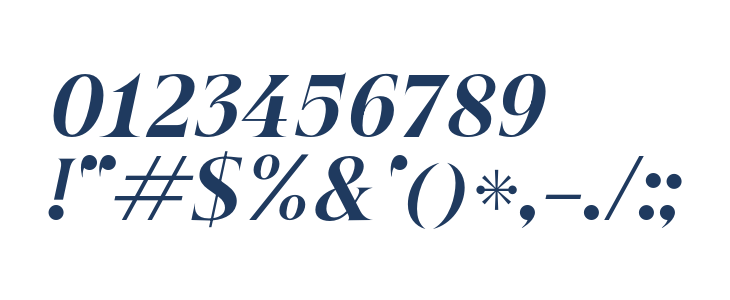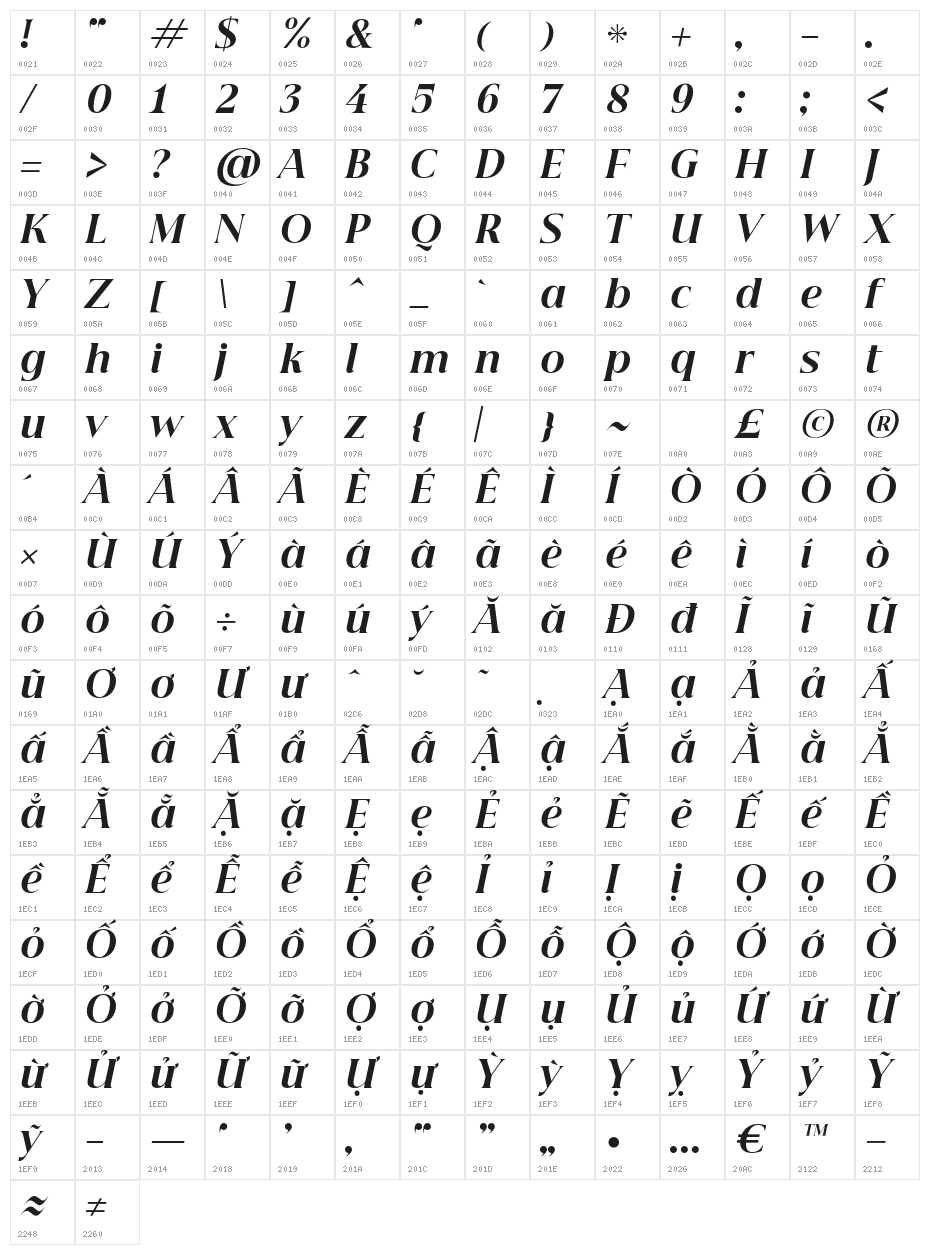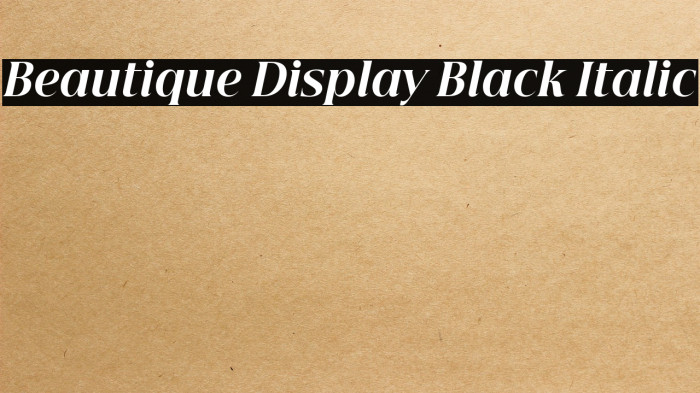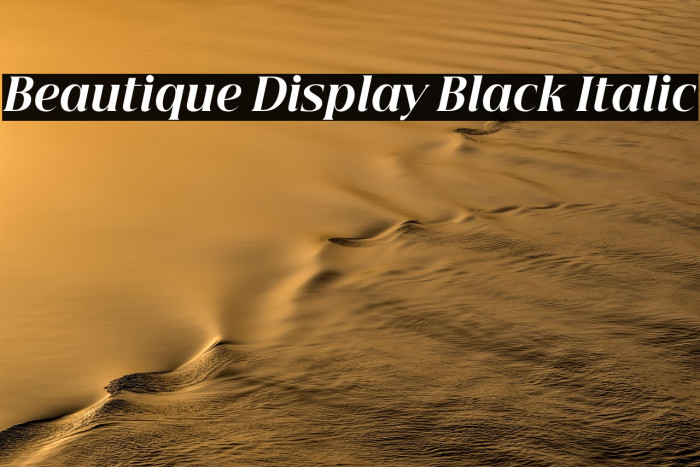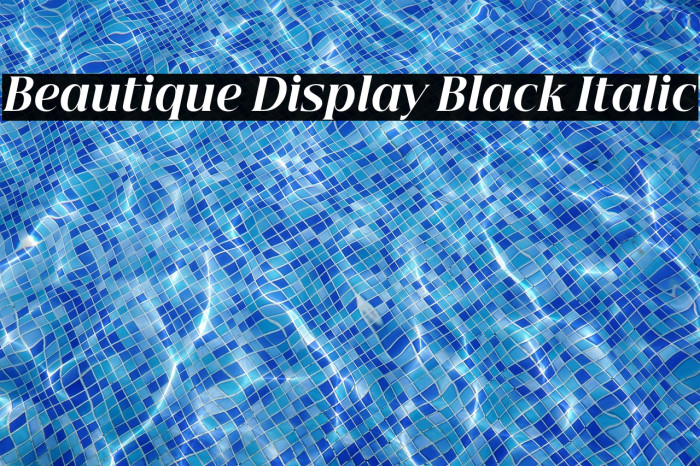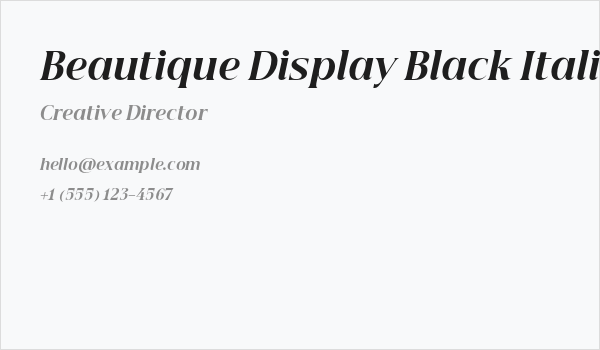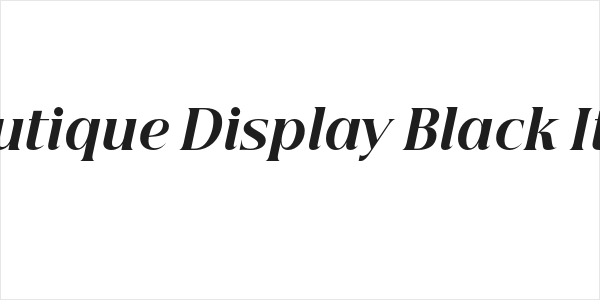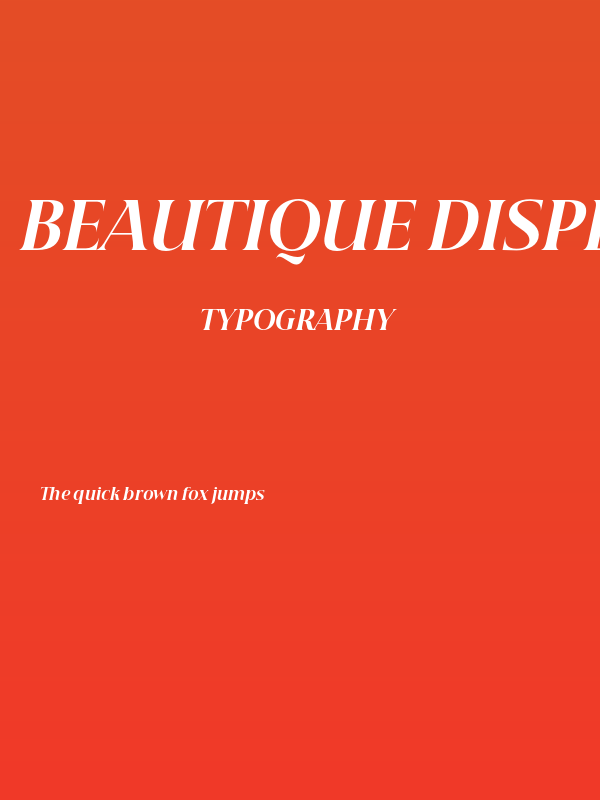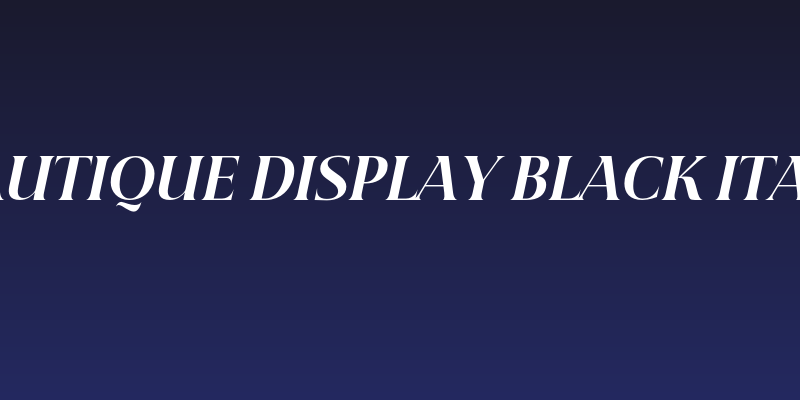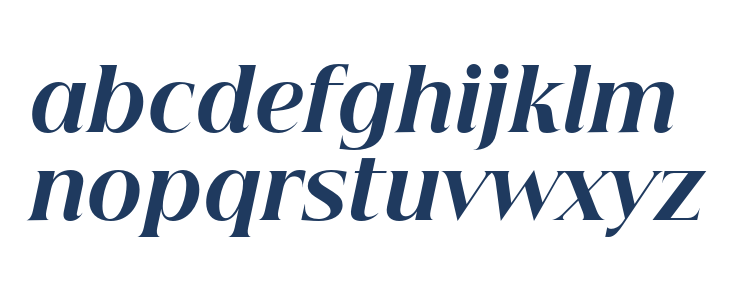
Beautique Display Black Italic Font
Beautique Display Black Italic Description
This font exhibits a bold and elegant style with a pronounced italic slant, giving it a dynamic and sophisticated appearance. The characters are well-defined with a high contrast between thick and thin strokes, enhancing readability while maintaining a stylish flair. The uppercase letters are tall and commanding, while the lowercase letters are more rounded and approachable. The numerals are consistent with the overall design, providing a cohesive look. Special characters are crafted with the same attention to detail, ensuring versatility across various applications.
| Proposed Projects | Ideal for luxury branding, fashion magazines, elegant invitations, and high-end product packaging. |